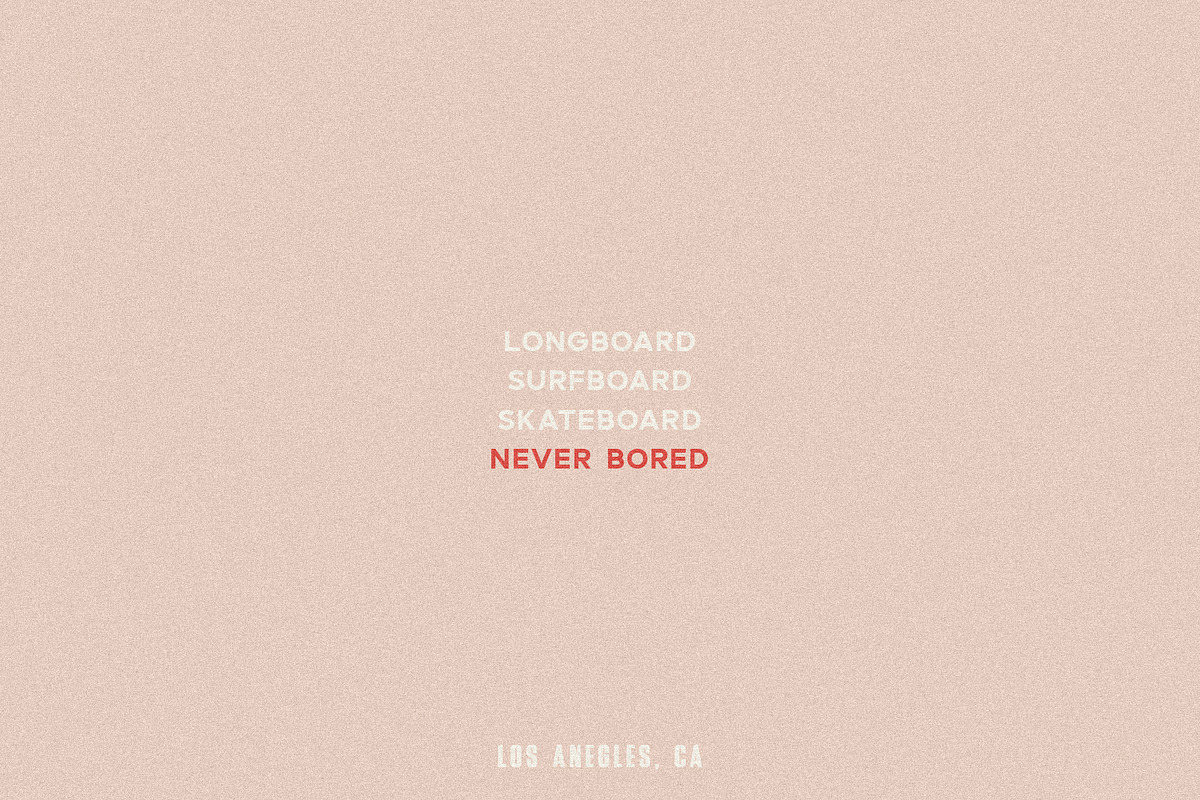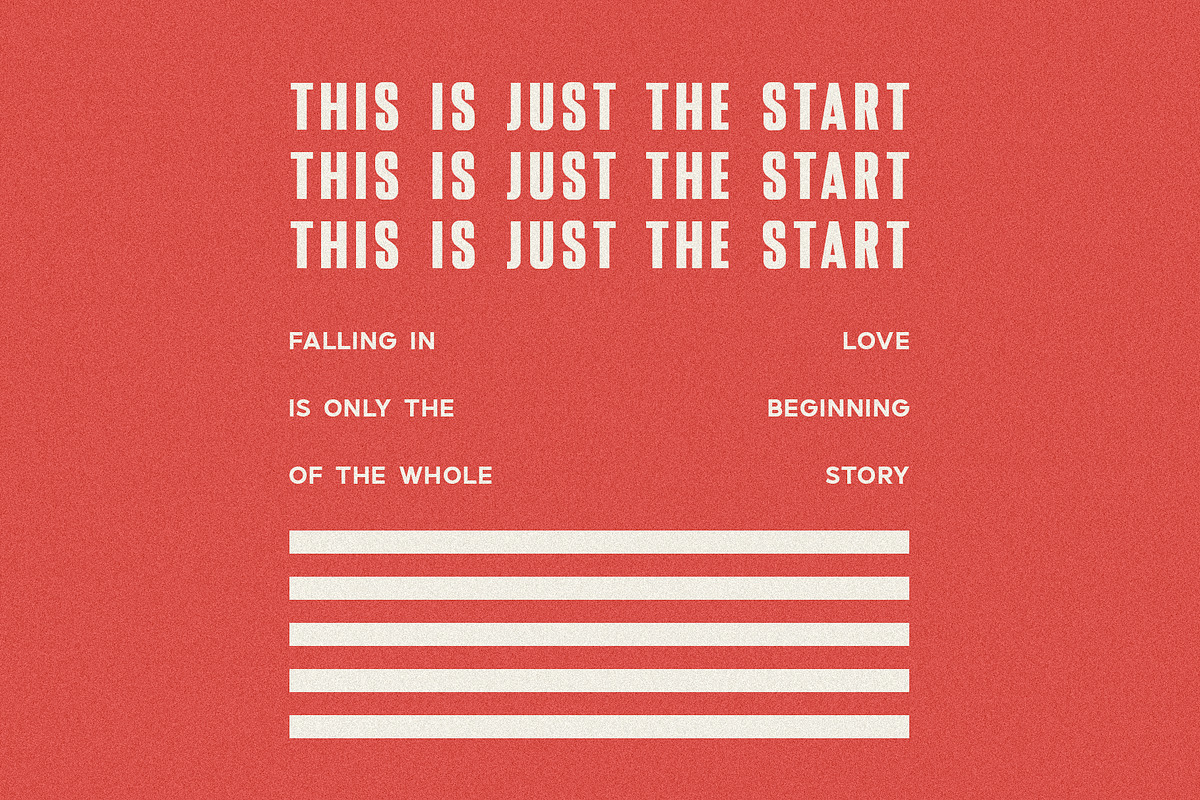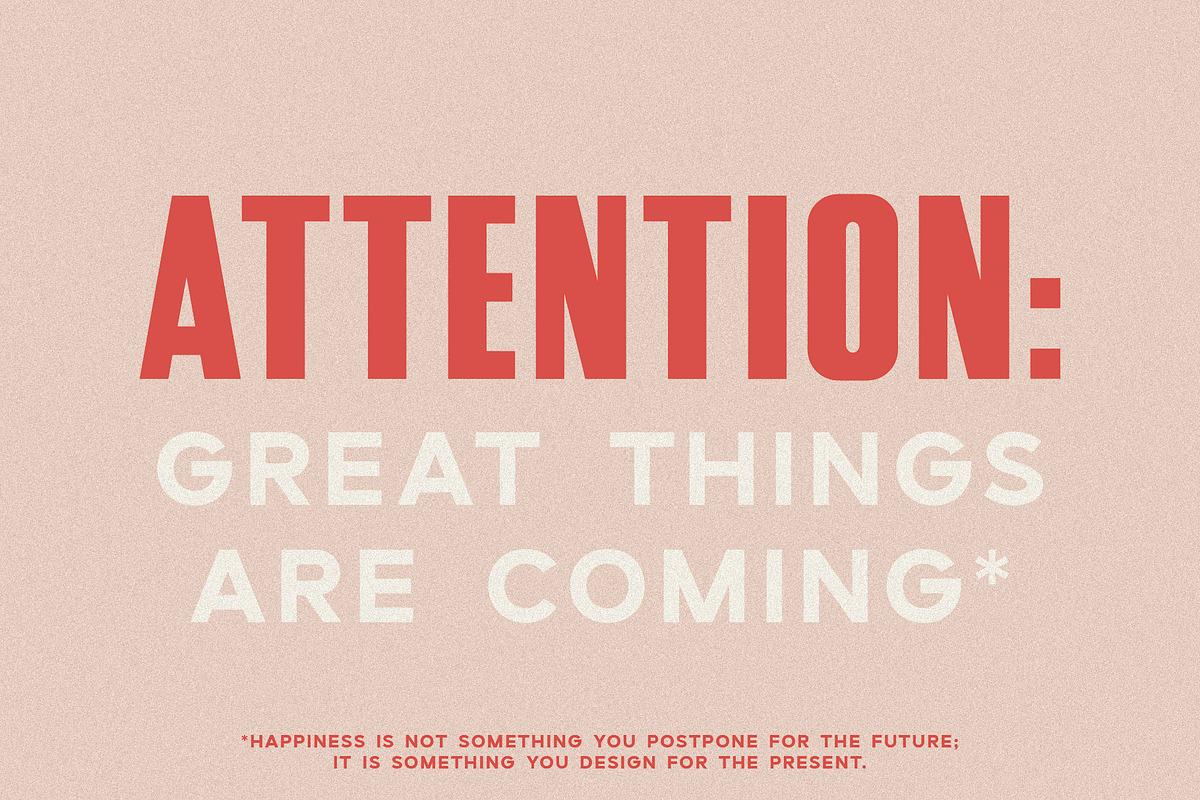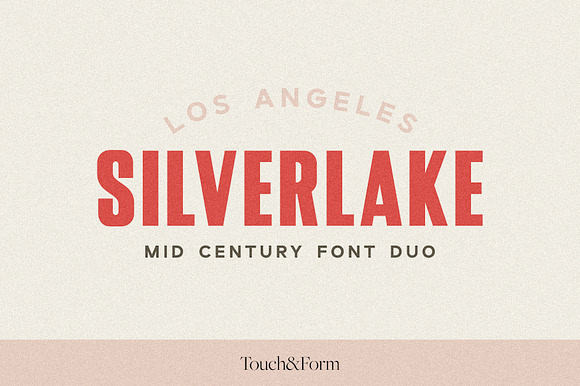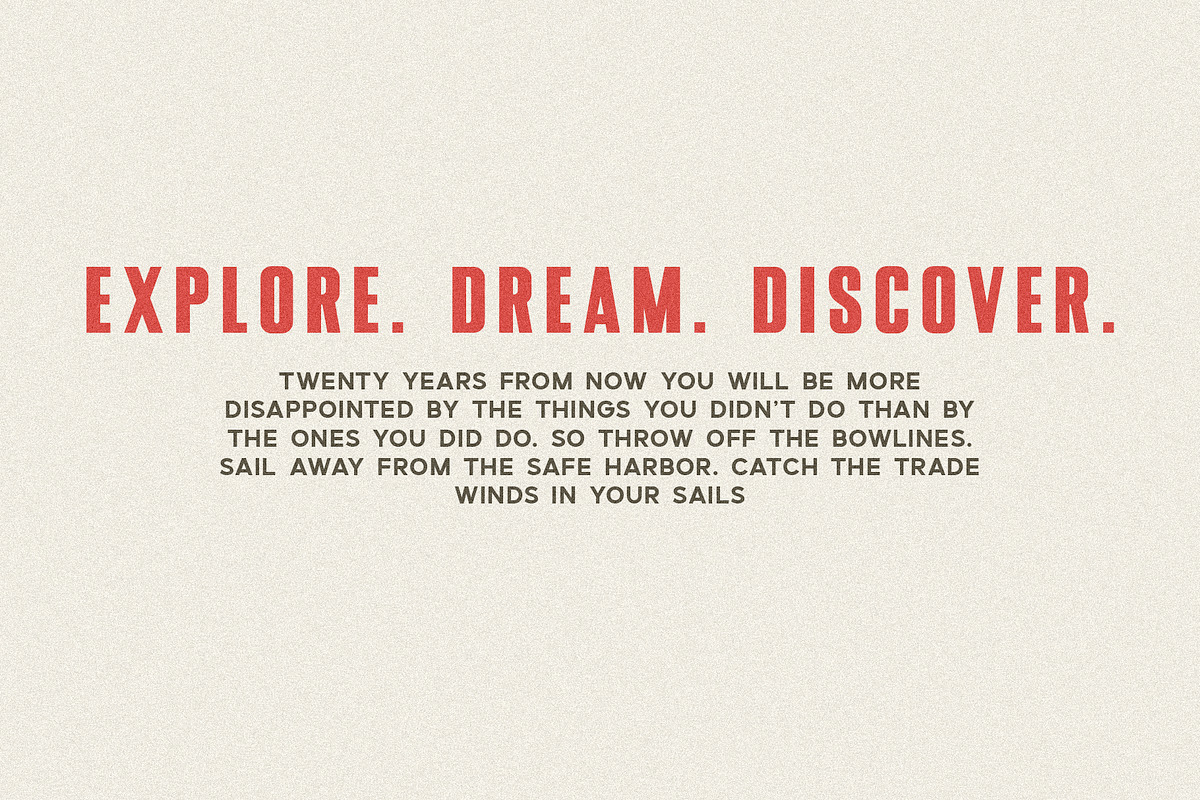
Silverlake | A Mid Century Font Duo
Silverlake is an all uppercase mid-century font duo that makes a pretty perfect pair. It's an incredible combo for branding projects, website headers, logos, printed materials, and signage, and takes all the guesswork out of finding fonts that work together!
Non-English support (Western & Central European)